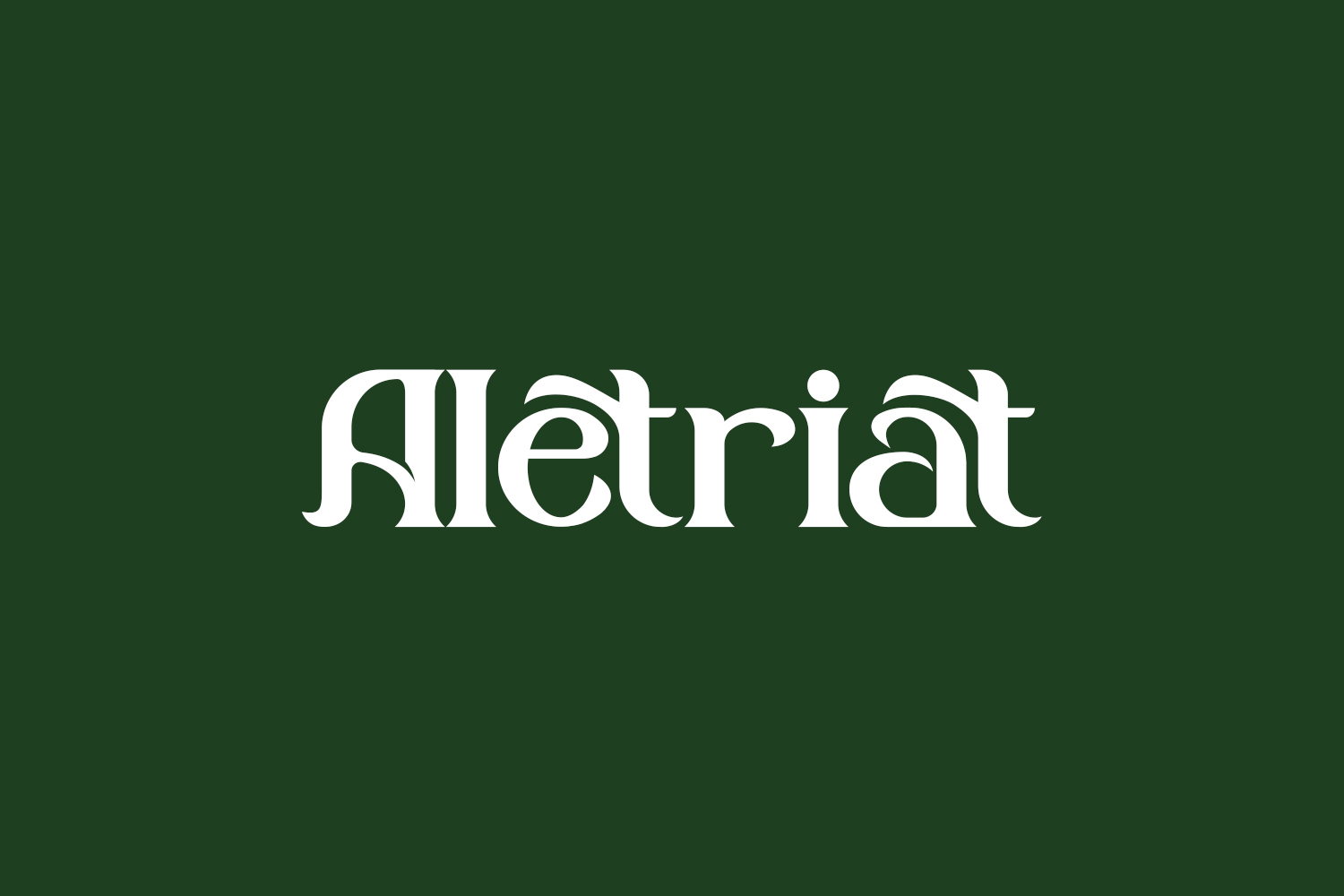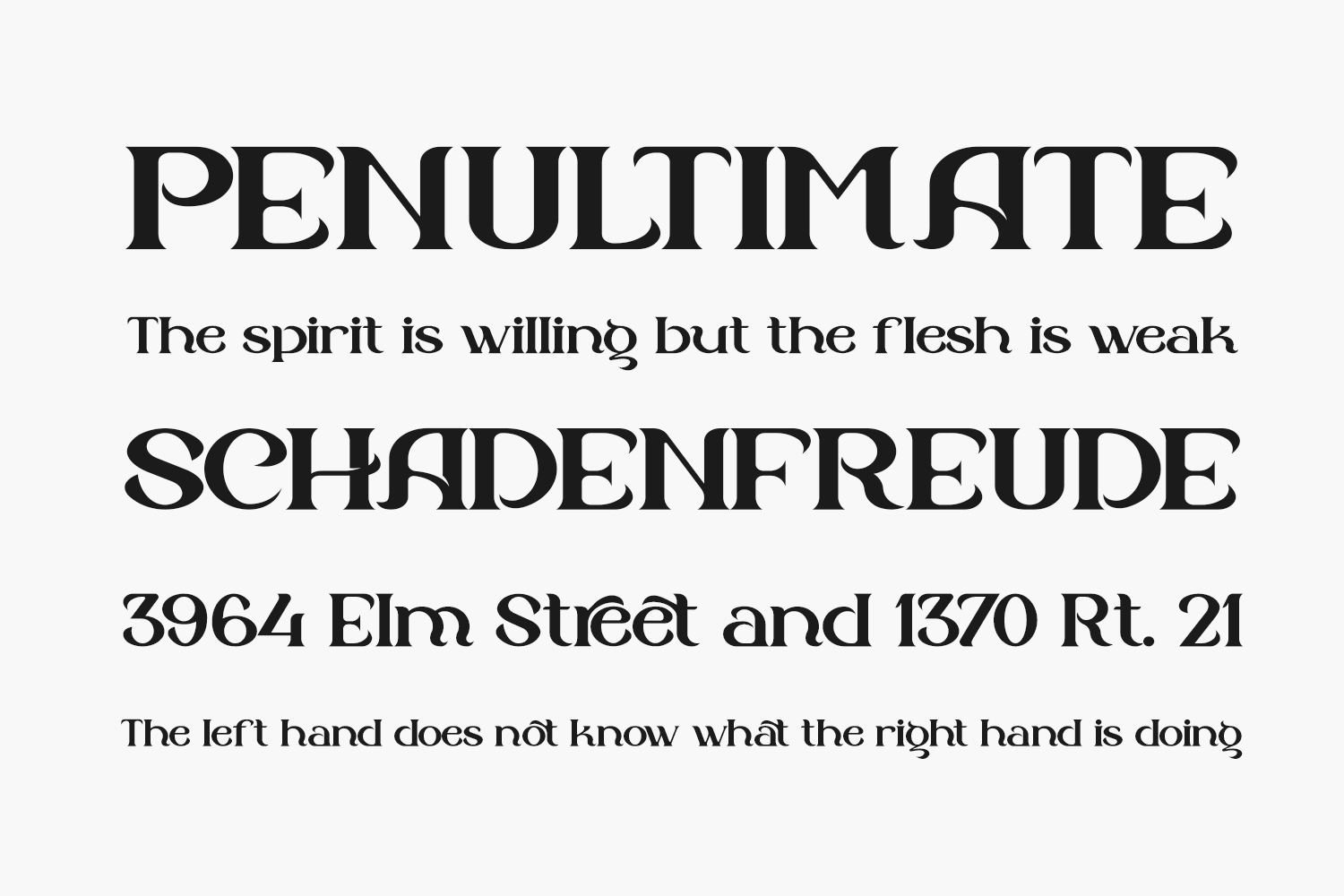
Experience timeless elegance with Aletriat Free Font, a stunning serif font boasting its own unique, modern style. Ideal for creating luxury logos, book and movie titles, fashion brand designs, magazines, clothing, lettering, quotes, and much more, this typeface is the perfect choice for adding sophistication to any project.